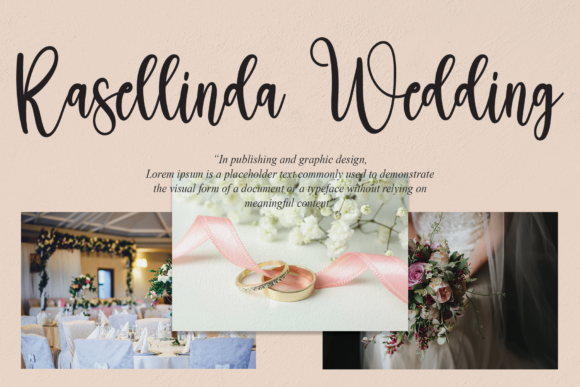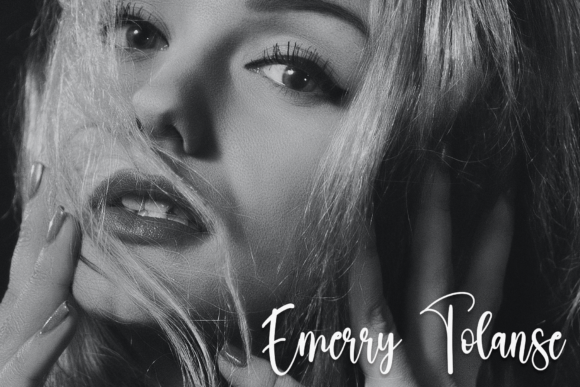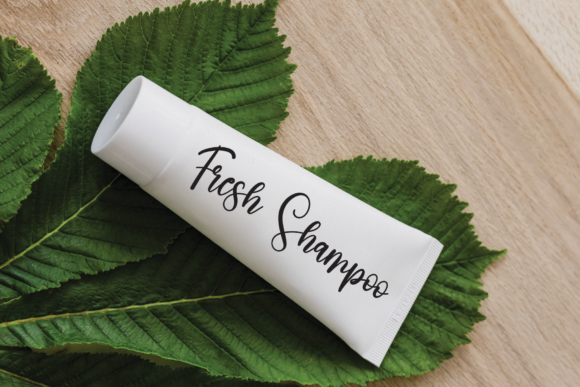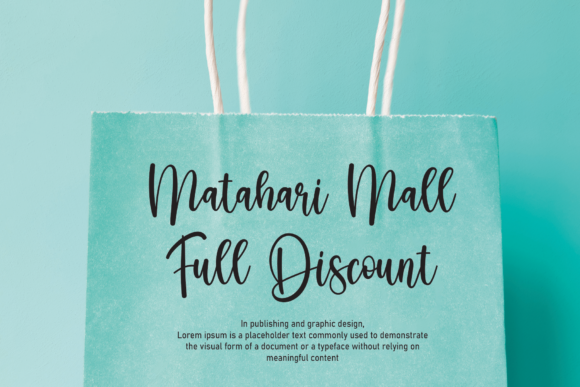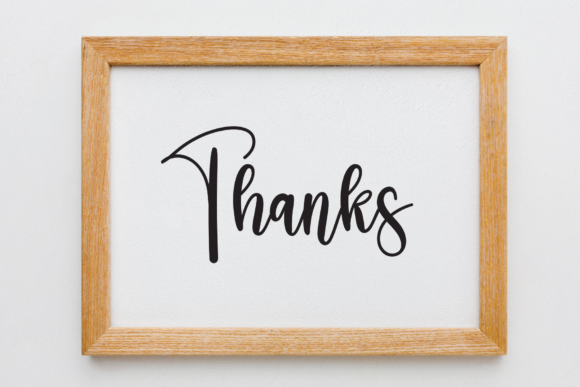
Introducing Blackpink Font: The Sweet and Cursive Handwritten Font for Your Design Needs
Are you a designer or crafter looking for a font that can add a touch of sweetness and romance to your projects? Look no further than Blackpink Font, a beautiful and elegant handwritten font that is perfect for a variety of design ideas. In this article, we’ll take a closer look at Blackpink Font, its features, and how you can use it to elevate your designs.
What is Blackpink Font?
Blackpink Font is a sweet and cursive handwritten font that is designed to bring a touch of joy and romance to your designs. Its gentle and flowing curves make it perfect for a wide range of projects, from wedding invitations and greeting cards to branding and packaging. This font is carefully crafted to provide a unique and personalized touch to your designs, making them stand out from the crowd.
Features of Blackpink Font
So, what makes Blackpink Font so special? Here are some of its key features:
- Sweet and Cursive Design: Blackpink Font features a beautiful, cursive design that is both sweet and elegant. Its flowing curves and gentle lines make it perfect for creating romantic and feminine designs.
- Handwritten Style: This font is carefully crafted to mimic the look and feel of handwritten text. Its unique and personalized style makes it perfect for adding a touch of warmth and personality to your designs.
- Versatile: Blackpink Font is incredibly versatile and can be used for a wide range of design ideas. Whether you’re creating a wedding invitation, a greeting card, or a brand identity, this font is sure to impress.
- Easily Readable: Despite its cursive design, Blackpink Font is easily readable, making it perfect for body text and other applications where clarity is key.
How to Use Blackpink Font in Your Designs
Now that we’ve covered the features of Blackpink Font, let’s take a look at how you can use it in your designs. Here are some ideas to get you started:
- Wedding Invitations: Blackpink Font is perfect for wedding invitations, adding a touch of romance and elegance to your design.
- Greeting Cards: Use Blackpink Font to create beautiful and heartfelt greeting cards for special occasions like Valentine’s Day, Mother’s Day, and more.
- Branding and Packaging: Add a touch of personality to your brand identity with Blackpink Font. Use it for logos, packaging, and other marketing materials.
- Social Media Graphics: Use Blackpink Font to create stunning social media graphics, including Instagram posts, Facebook posts, and more.
Tips for Using Blackpink Font
Here are some tips for using Blackpink Font in your designs:
- Pair it with Other Fonts: Experiment with pairing Blackpink Font with other fonts to create a unique and interesting design.
- Use it for Headings and Titles: Blackpink Font is perfect for headings and titles, adding a touch of elegance and sophistication to your design.
- Experiment with Colors: Try out different colors with Blackpink Font to create a design that matches your brand identity.
In conclusion, Blackpink Font is a beautiful and elegant handwritten font that is perfect for designers and crafters looking to add a touch of sweetness and romance to their projects. With its sweet and cursive design, versatile style, and easily readable text, Blackpink Font is sure to impress. Whether you’re creating wedding invitations, greeting cards, or brand identities, this font is sure to elevate your designs to the next level.